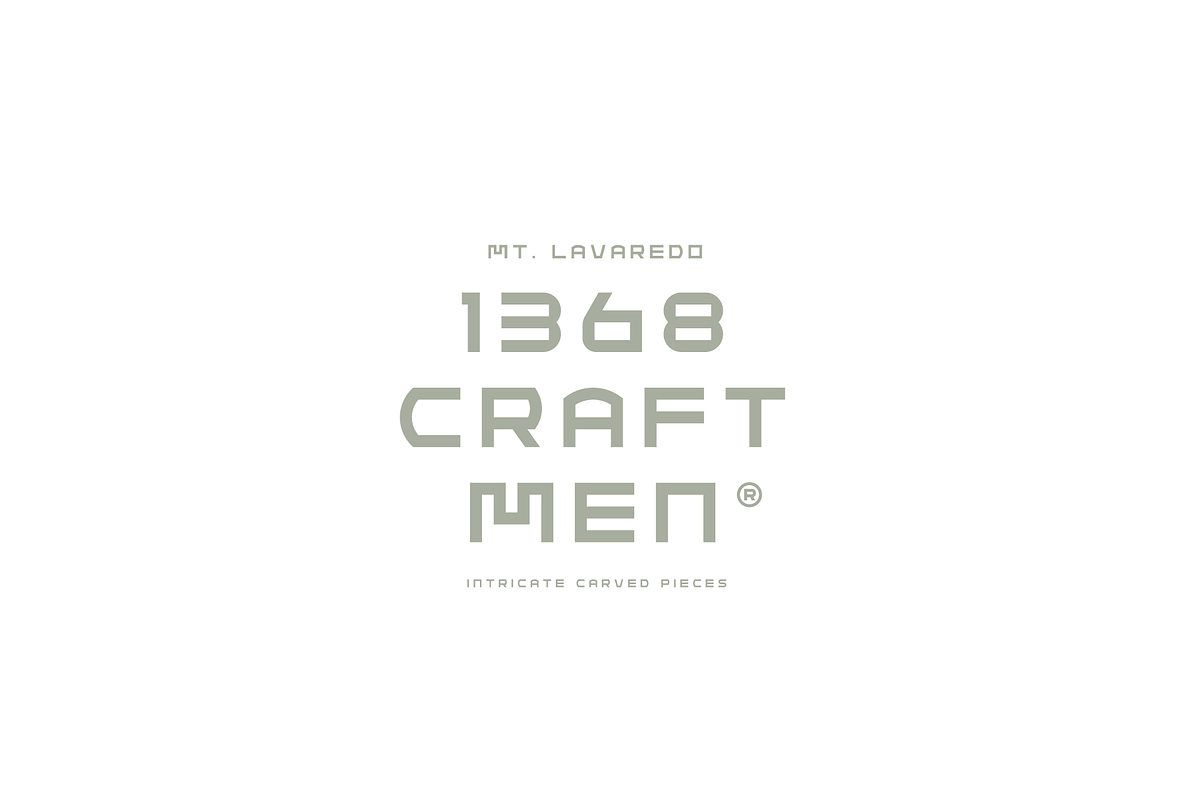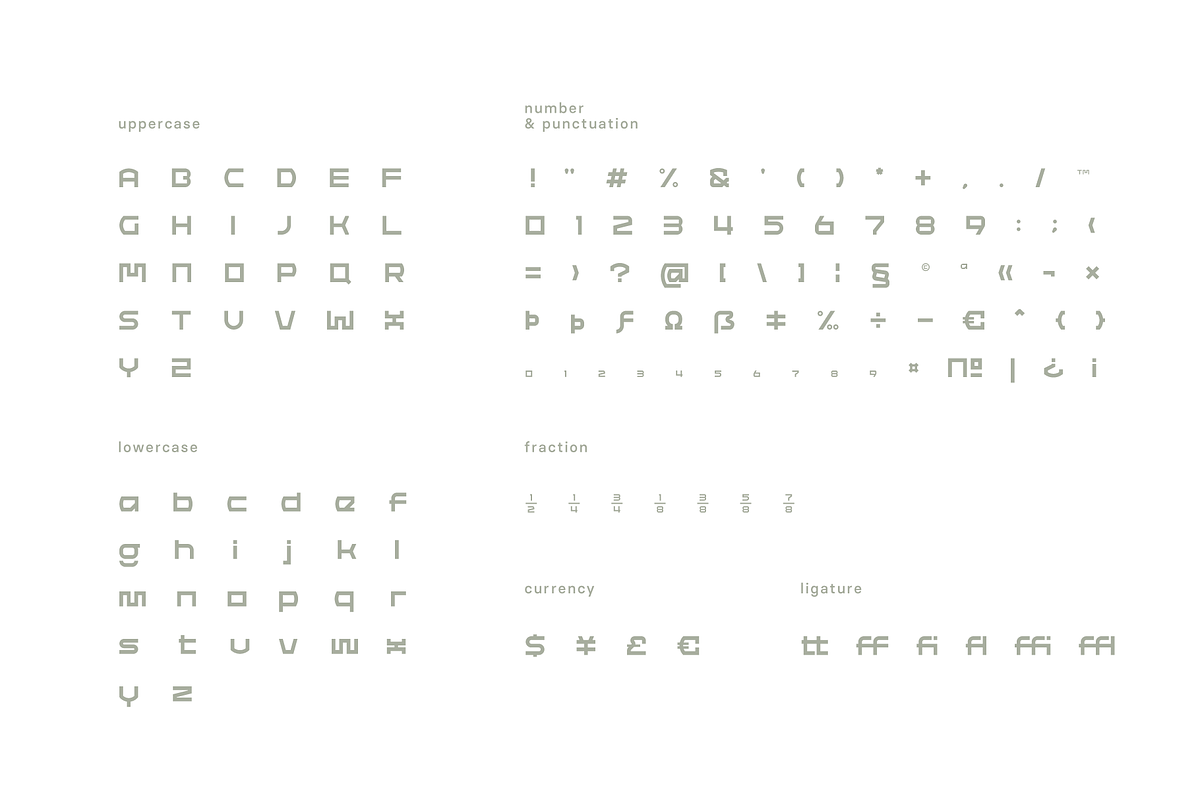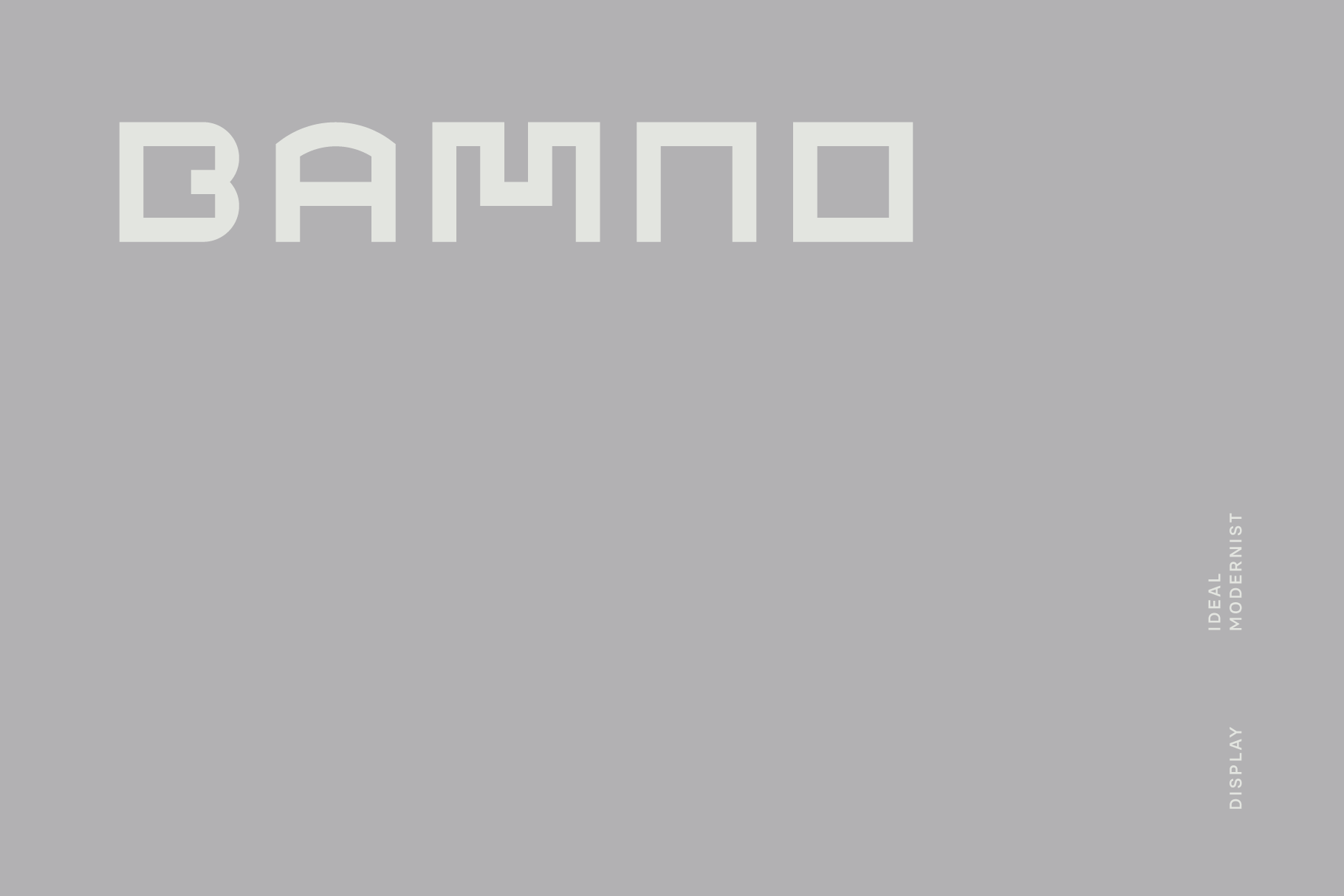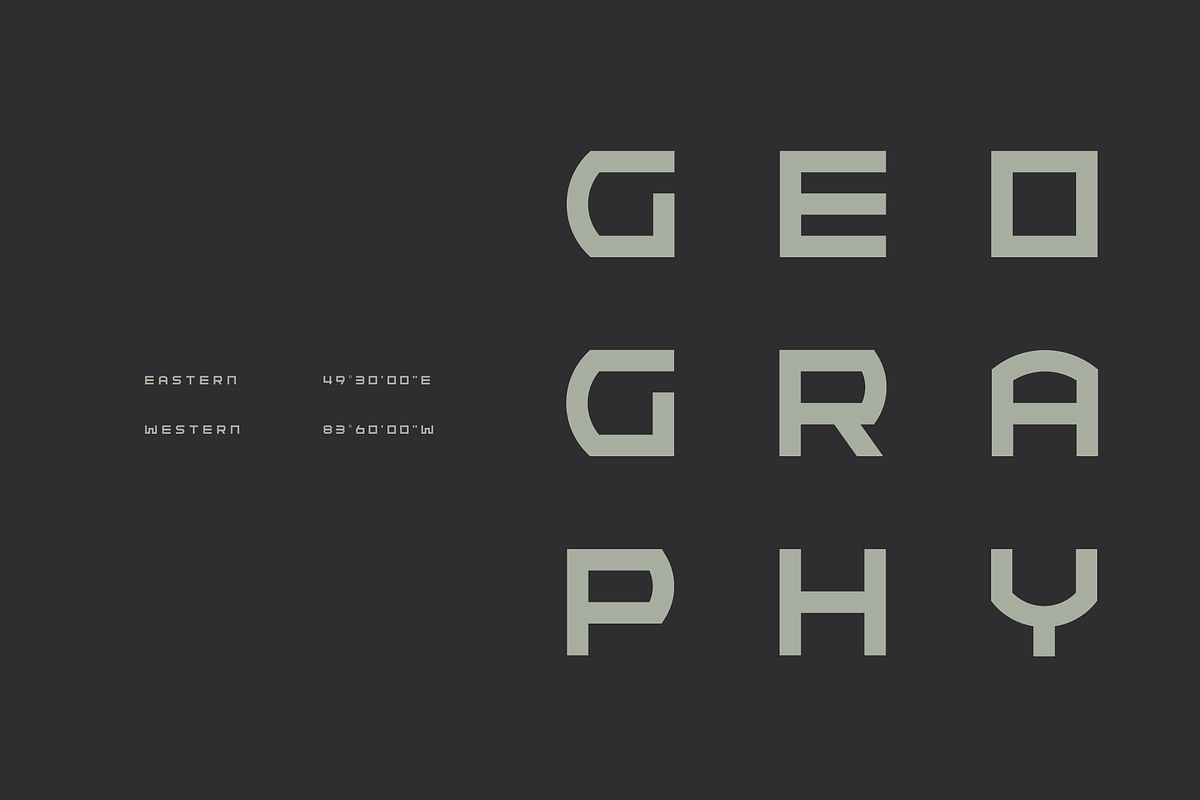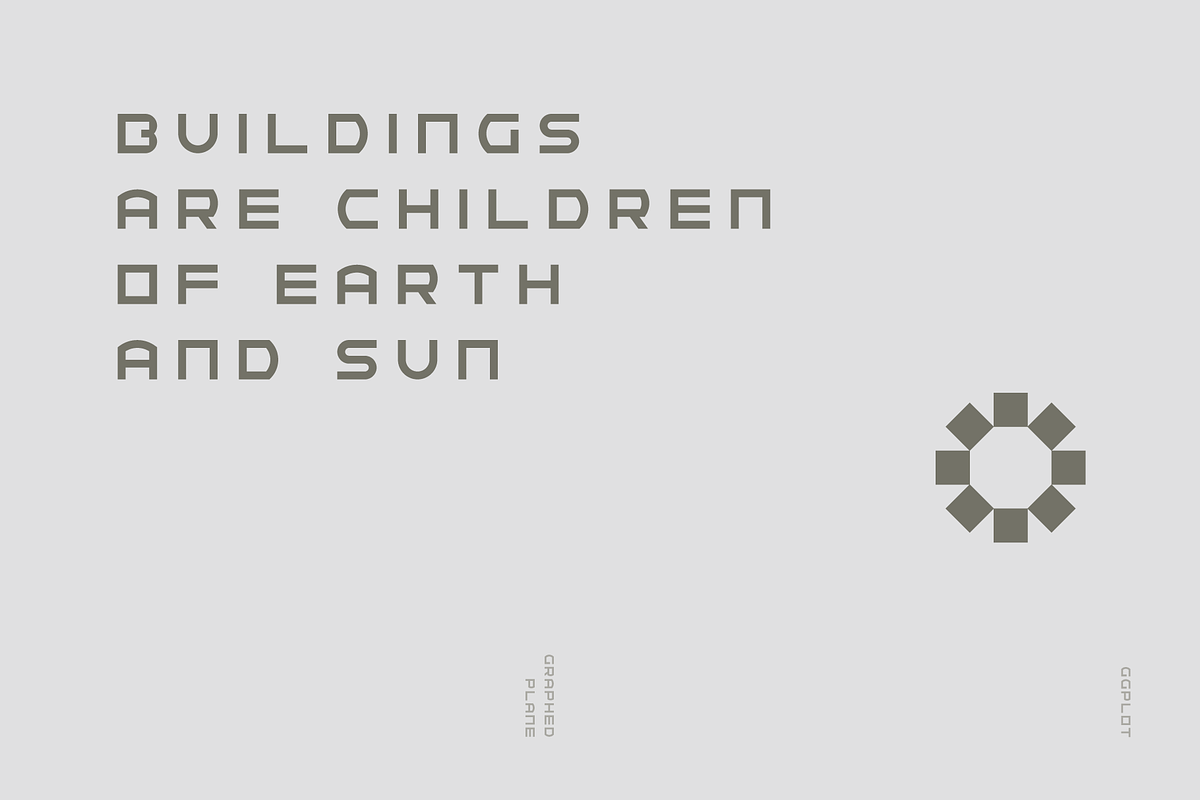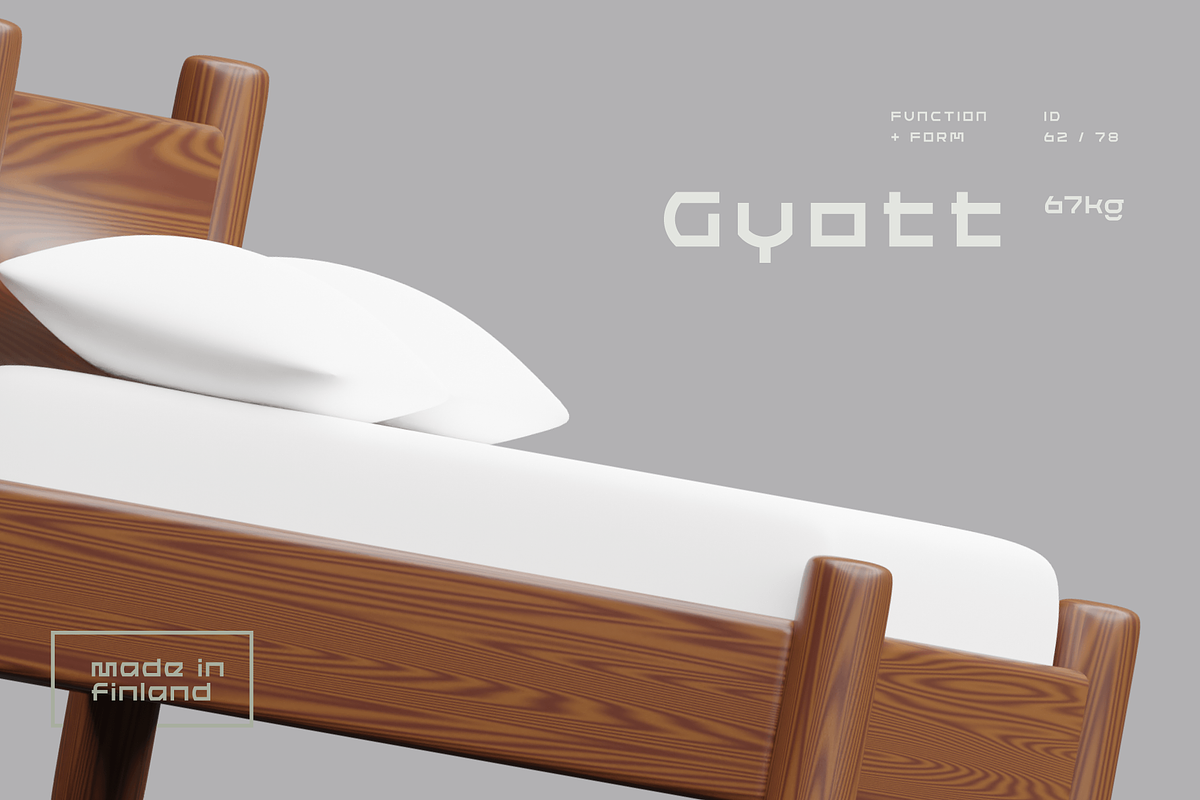
Bamno Font
Bamno is a modernist ideal linear sans apt for headline, editorial, branding, packaging, printed materials and typographic applications. 150+ glyphs with ligatures and fractions provided in opentype .otf and .woff format.